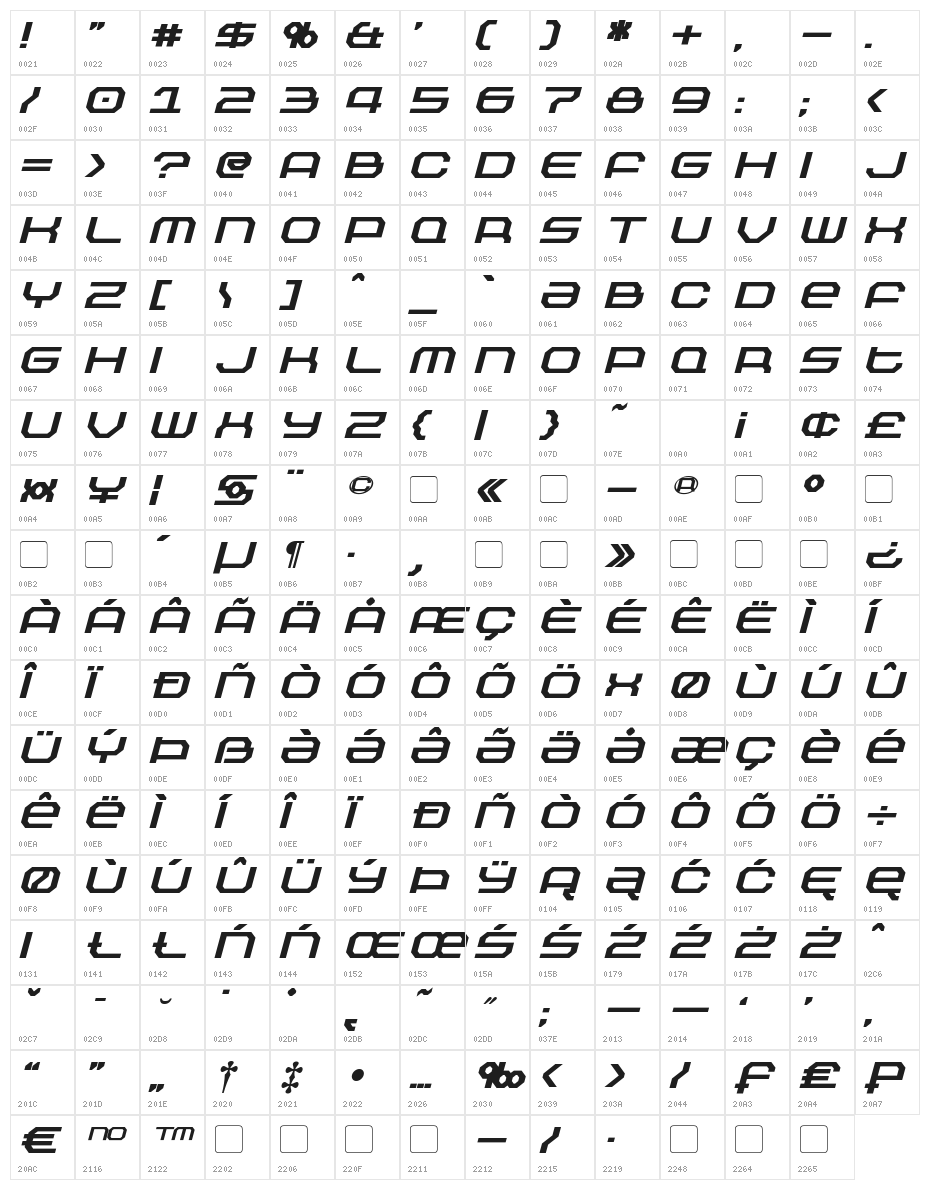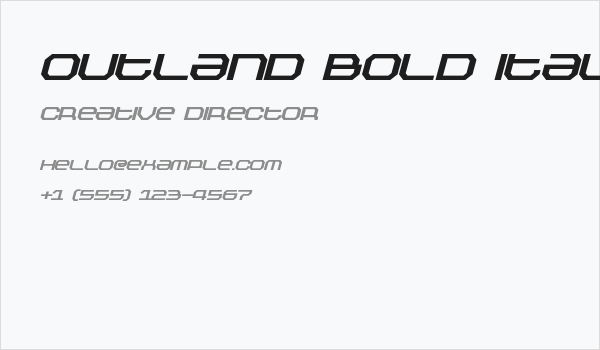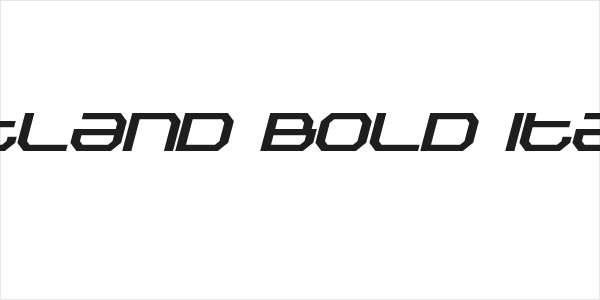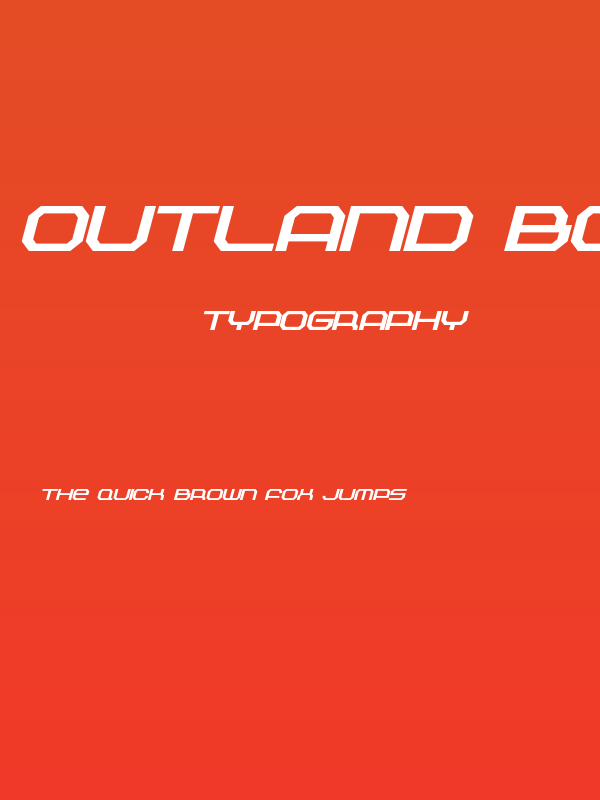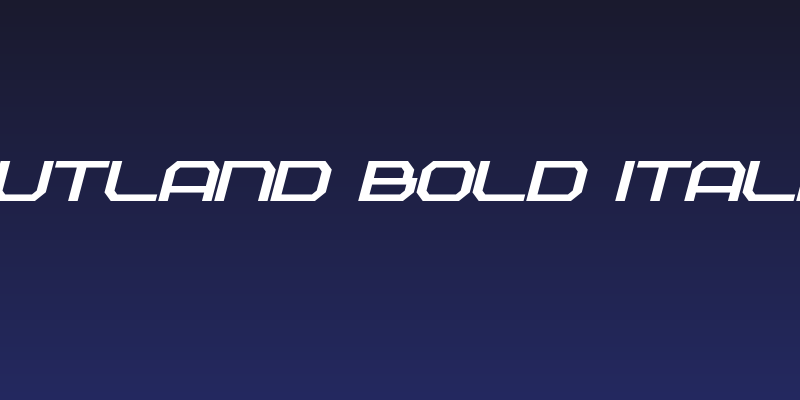
Outland Bold Italic Font
Outland Bold Italic Description
This font features a bold and italicized style with a futuristic and angular design. The characters are constructed with sharp edges and geometric shapes, giving it a modern and tech-inspired appearance. The uppercase and lowercase letters maintain a consistent style, with a slight slant that enhances its dynamic look. Numbers and special characters are designed to match the overall aesthetic, providing a cohesive visual experience. The font's bold weight and italic angle make it stand out, ideal for projects that require a strong and contemporary feel.
| Proposed Projects | Ideal for technology branding, sci-fi posters, video game titles, and modern advertising. |